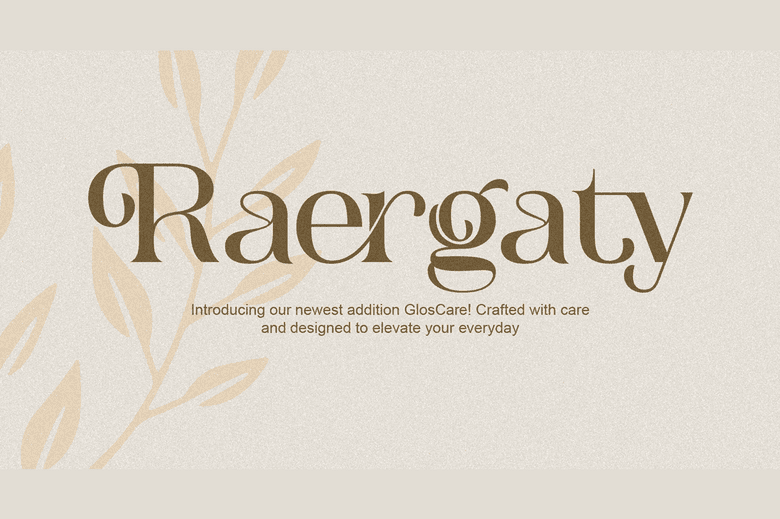
Raergaty Font
Raergaty is a simple, stylish and dense lettering serif font. The font is PUA encoded and this implies that you can easily access all the glyphs and swashes.
Fall in love with its very versatile style and use it to make spectacular designs!
Raergaty Serif Font